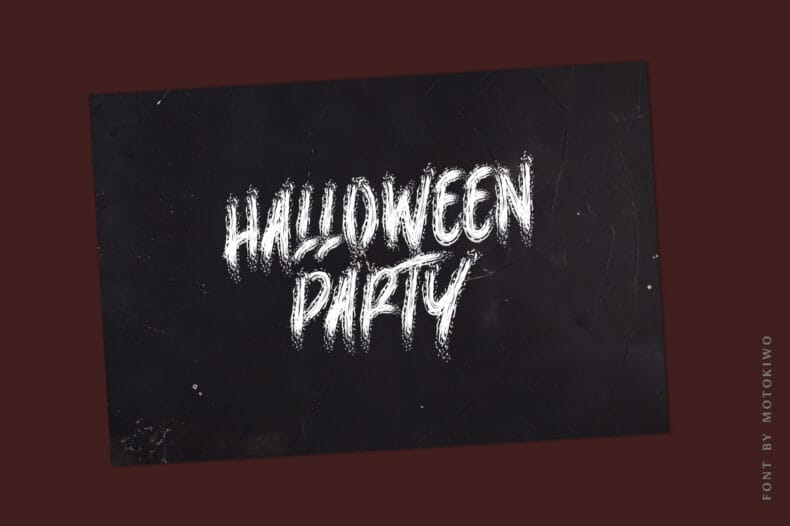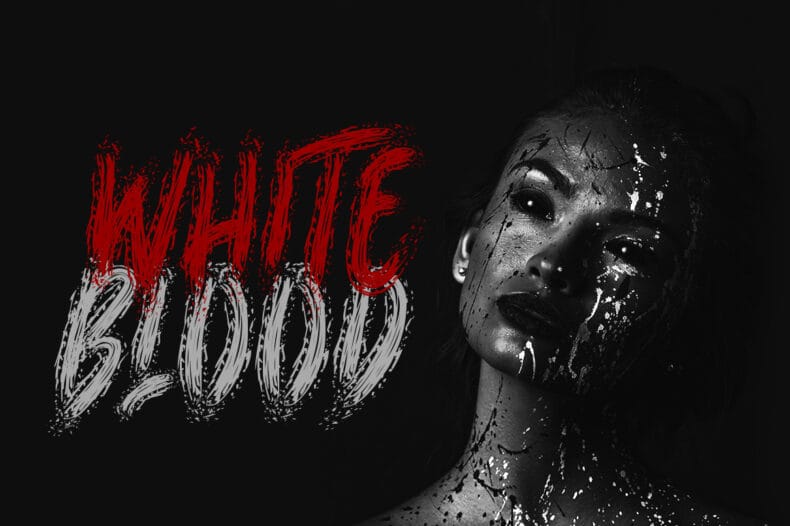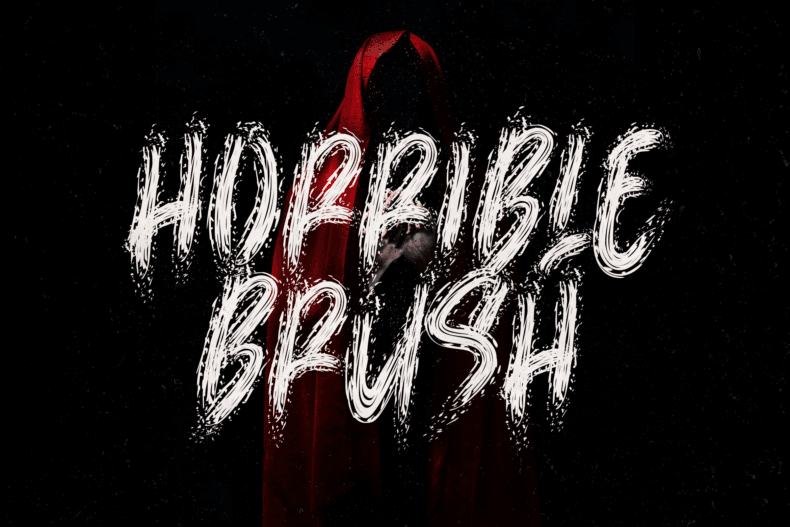
Horrible Brush, Horror Font
Horrible Brush is an all-caps horror display font with a messy brush texture. Explore it for Halloween graphics, eerie titles, and unsettling poster concepts.
Horrible Brush uses rough, messy brushwork to give short messages a deliberately uneasy character. Try it for a horror-story title, a seasonal event poster, or a dramatic graphic where the lettering should contribute to the mood.
The font includes capitals, numerals, punctuation, and multilingual characters. Keep enough contrast between the type and artwork for the title to remain readable through the texture.